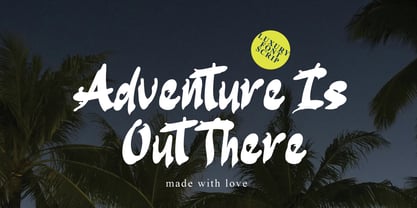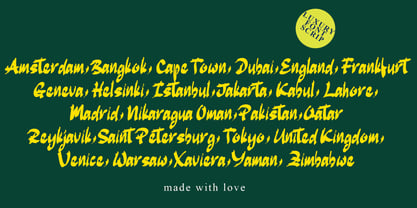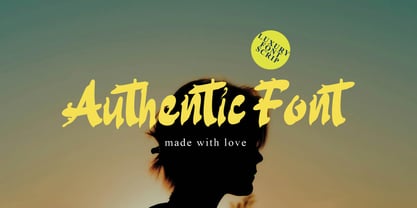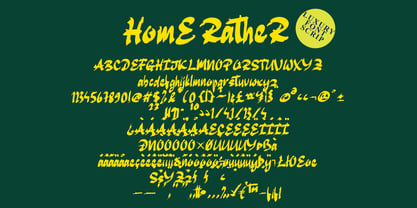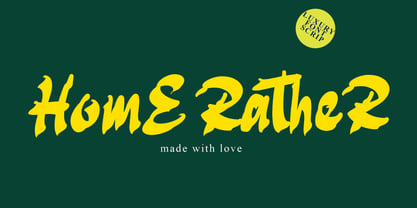
Home Rather
by Pineungtype misinklab
The Home Rather Font Family was designed by Beni Saswita and published by Pineungtype misinklab. Home Rather contains 1 styles. More about this family
Home Rather is an exquisite lettering font, characterized by its meticulously crafted letters that elevate the beauty of your text. Its elegant script style is perfect for a wide range of applications, including quotes, blog headers, posters, weddings, branding, logos, fashion, apparel, invitations, stationery, and more. This versatile font brings a sophisticated touch to any project, making it an ideal choice for both personal and professional use.
Designers: Beni Saswita
Foundry: Pineungtype misinklab